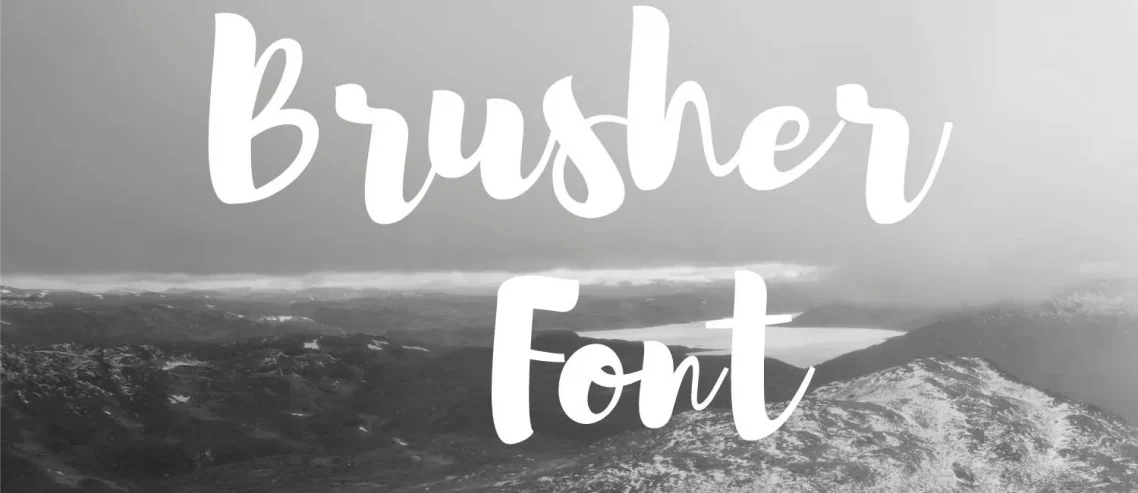
If you are searching for a trendy and contemporary font, Brusher Font is the ideal pick! This font adds a touch of elegance and flair to any project, suiting various needs. With options in both regular and bold styles, you can use it for a wide range of purposes. Dive into the world of Brusher Font for a classy touch to your creations! Keep reading to learn more about this stylish font.
Brusher font style has very unique shapes for some of the letters, for example, the a is in the shape of a heart. This is not a google font but you can also download its alternates from the Google store like Allura and Alex brush Font.
View of Brusher Font
Brusher Font Info
| Name | Brusher Font |
| Designer | Vlad Cristea |
| Style | Brush |